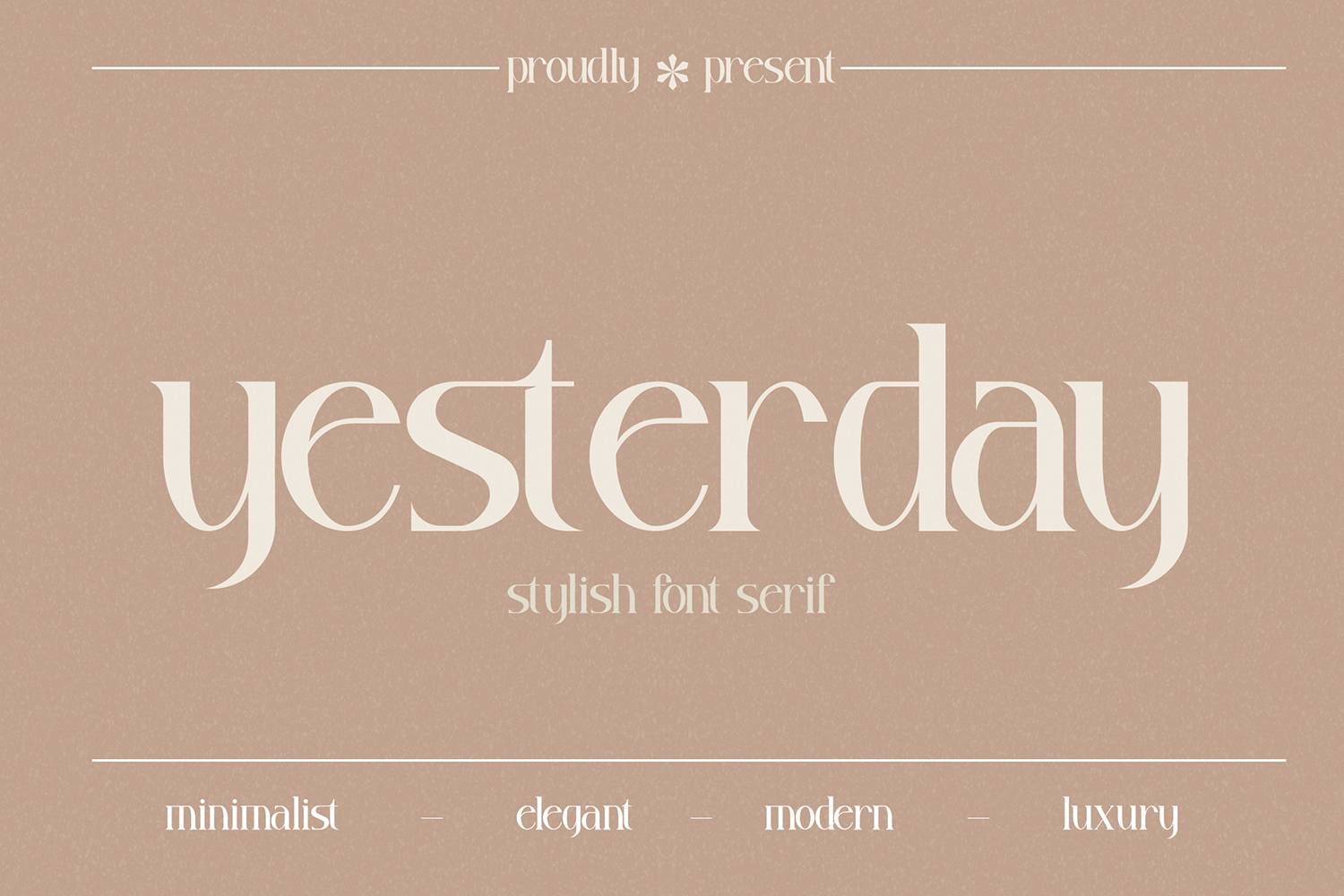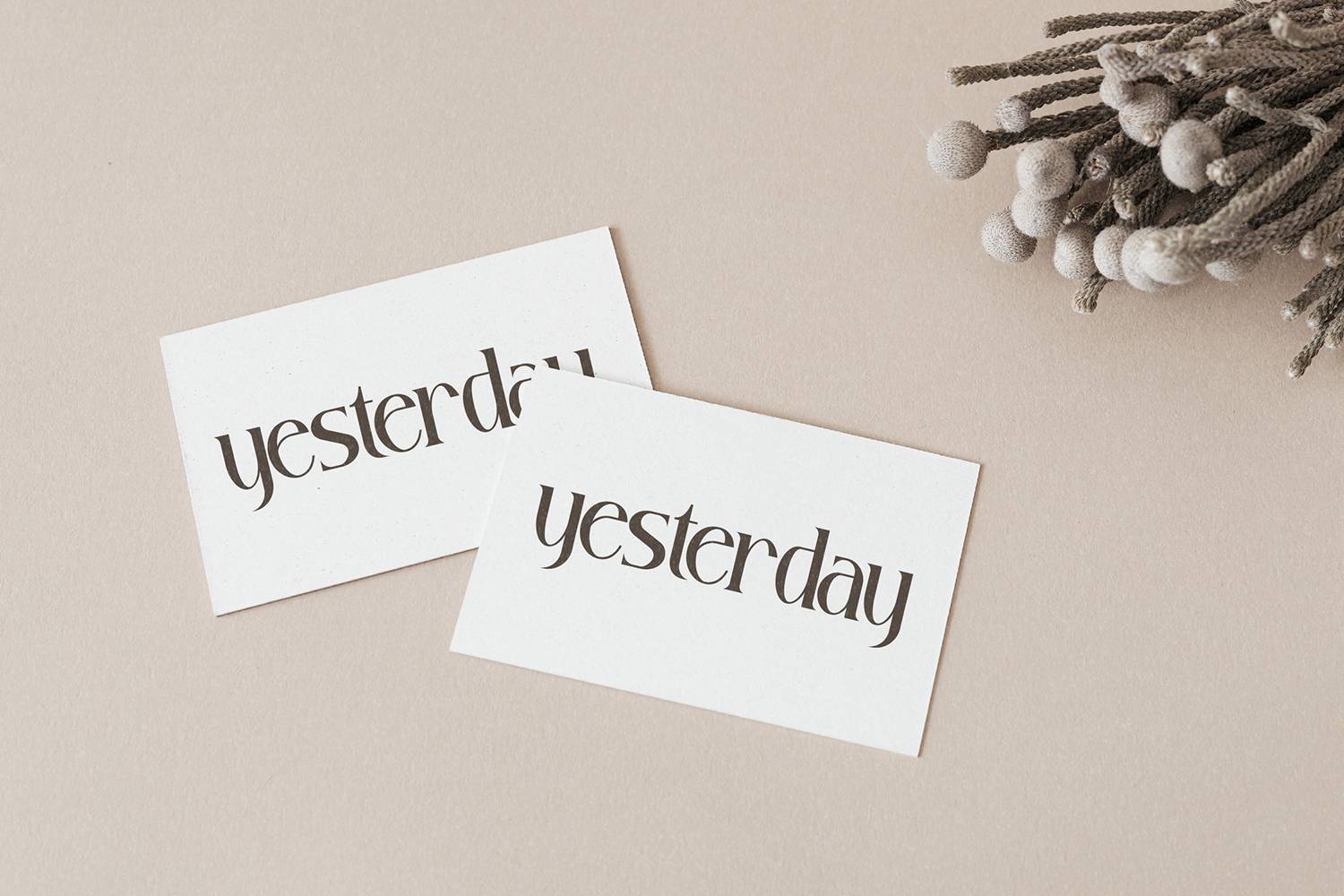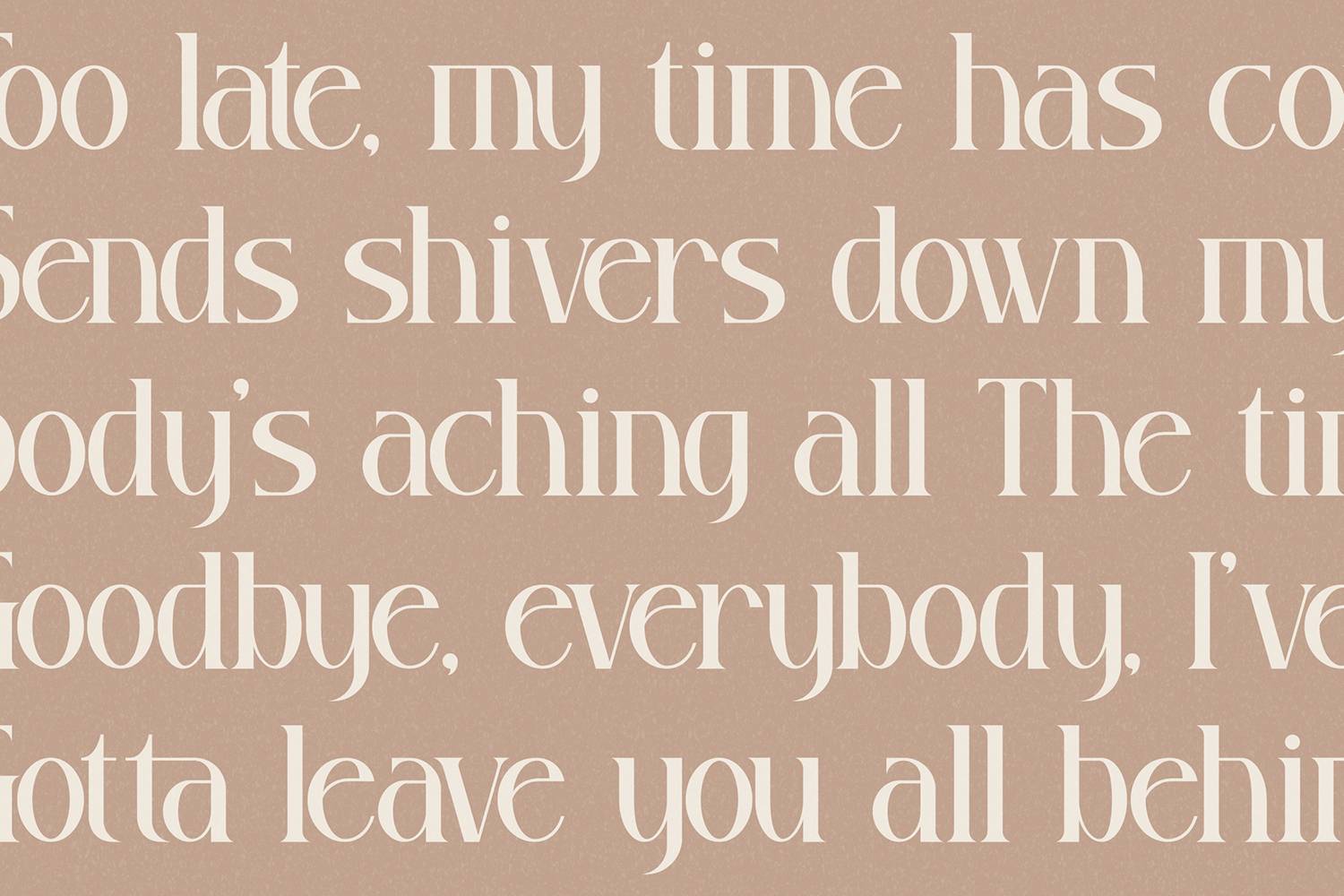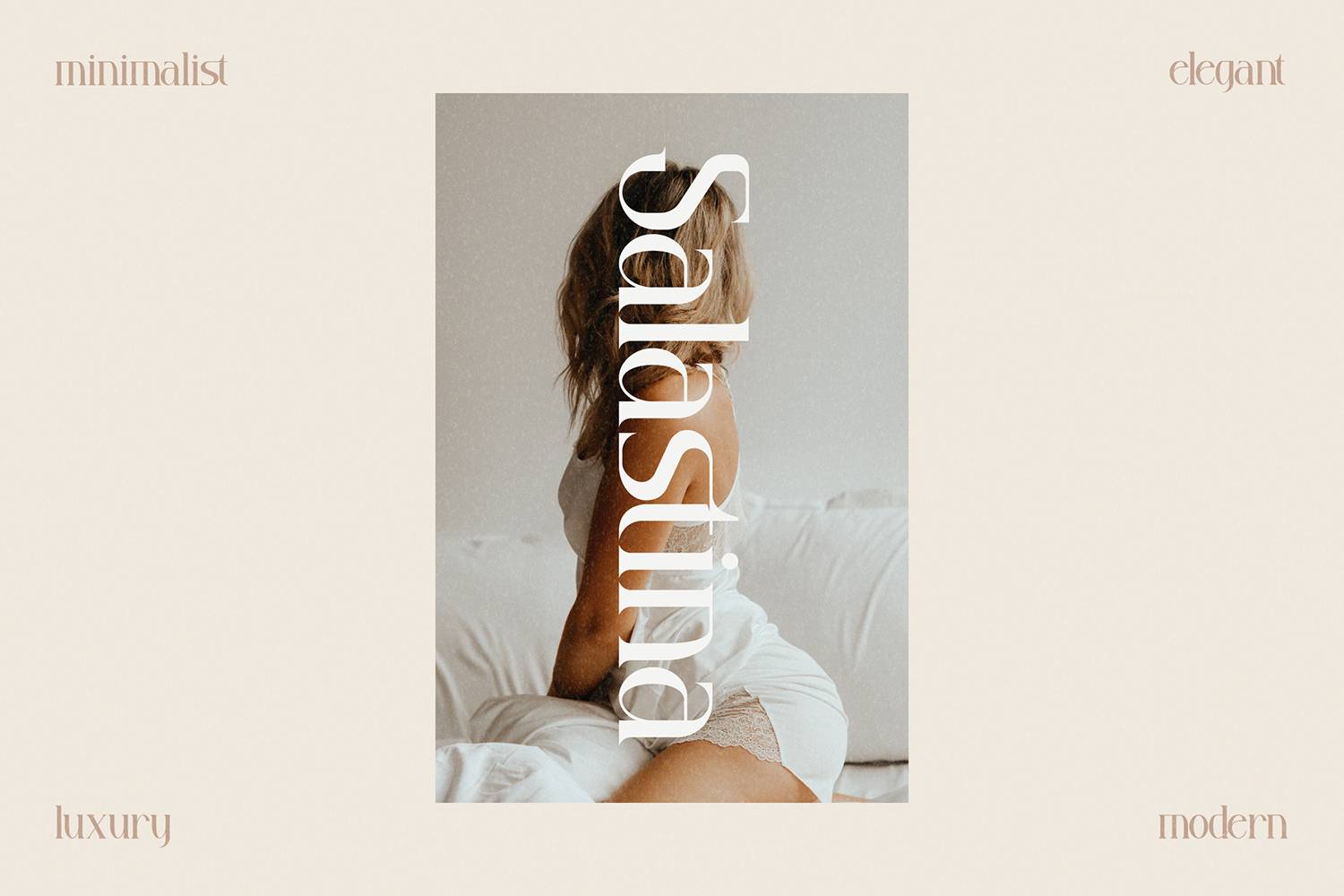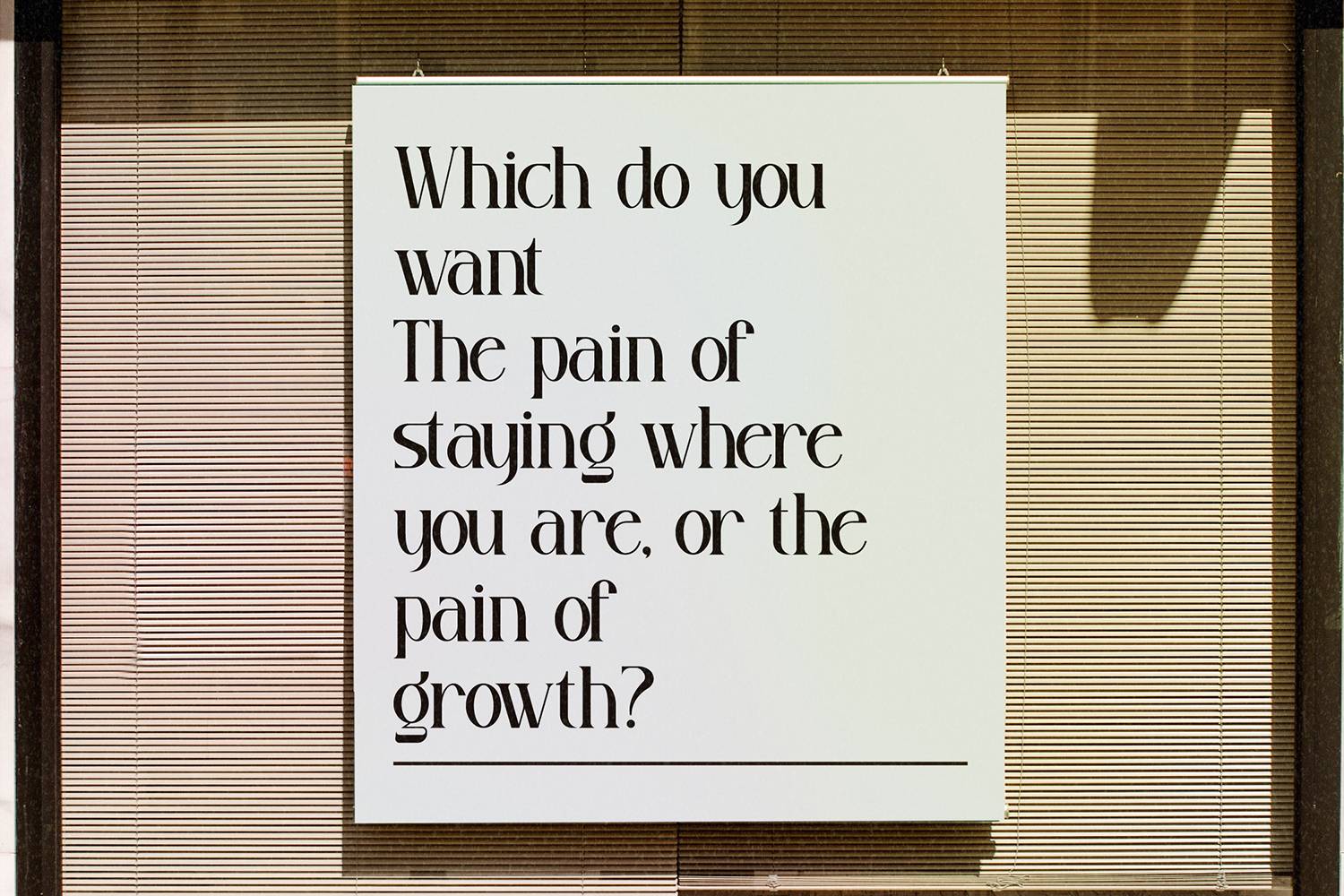
Yesterday is a stylish serif font with a modern twist, featuring high contrast between thick and thin strokes and elegant, narrow letterforms that create a sophisticated and refined look. Its sharp, slightly condensed design and unique character details give it a vintage yet contemporary feel, making it ideal for upscale branding, fashion editorials, and eye-catching headlines. This font works best where a touch of elegance and exclusivity is desired, lending a distinctive personality to luxury packaging, editorial layouts, and striking logo designs.
Yesterday Font
About Yesterday Font